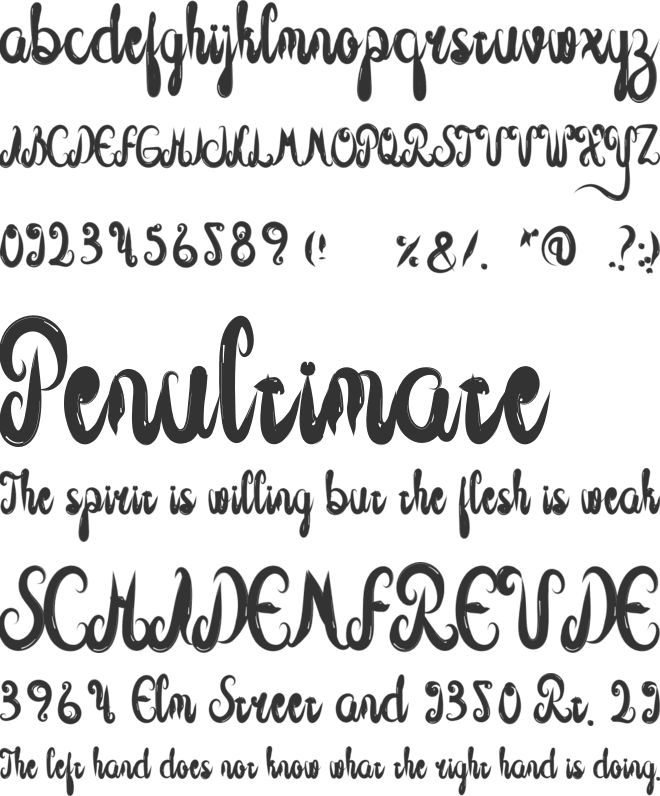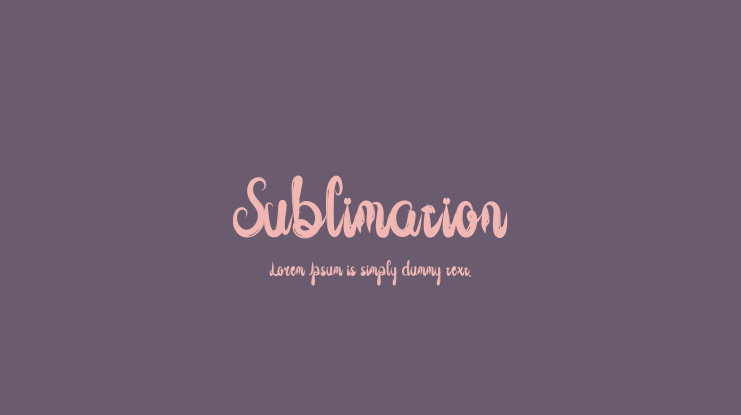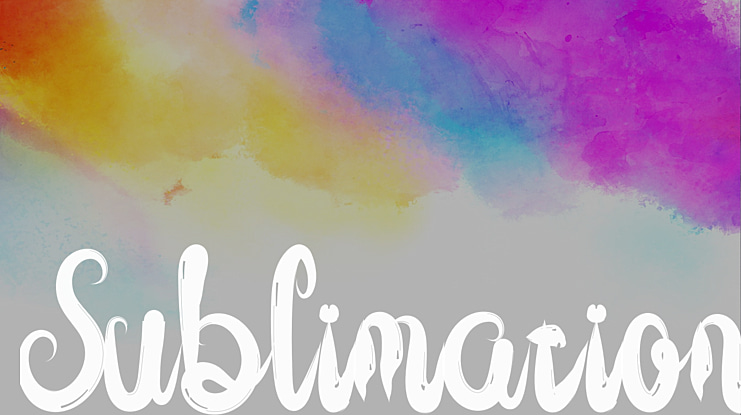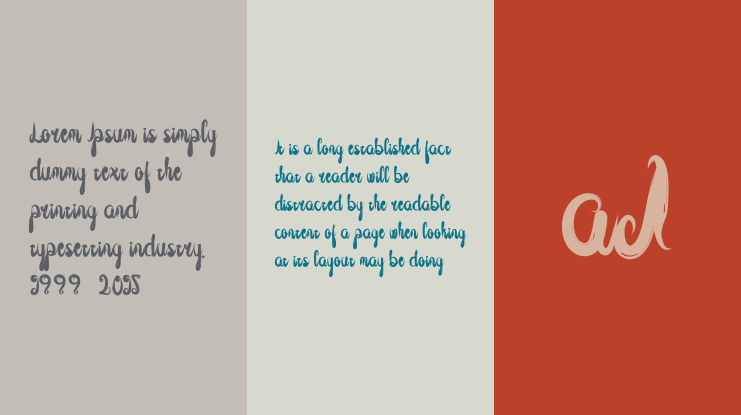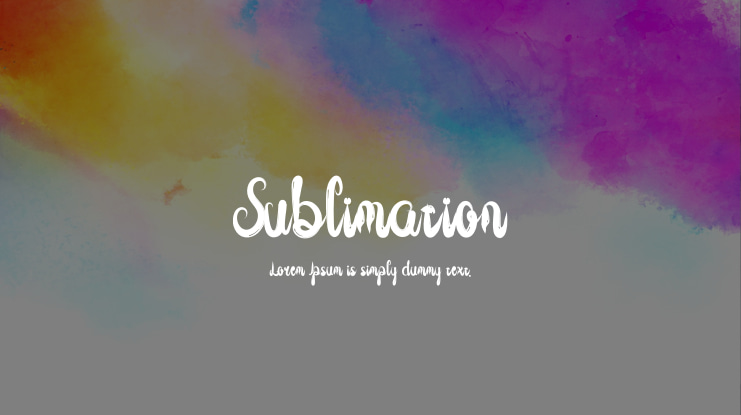
Sublimation Font
Sublimation is a cool and simple handwritten font. Its playfully and charming shape makes this font easily readable and very fun to use in a variety of projects.